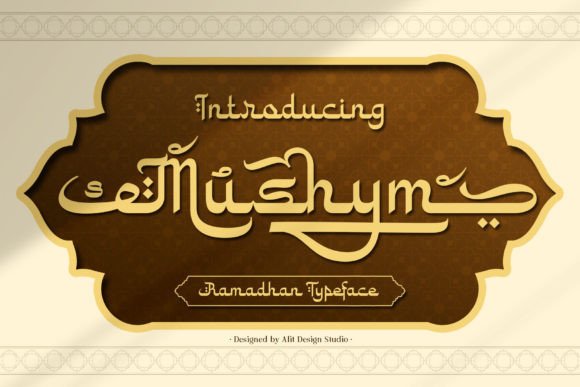
**Mushym Arabic Typeface Font: A Ramadan-Inspired Masterpiece for Timeless Elegance**
In a world saturated with digital noise, your designs need to stand out like a beacon of originality. Mushym Arabic Typeface Font is the key to unlocking this elusive goal. Its intricate and beautiful design, inspired by the spirit of Ramadan, will infuse your creations with a religious and Islamic touch that is sure to leave a lasting impression.
**Unleash the Power of Arabic Calligraphy**
With its elegant curves, sweeping flourishes, and precise attention to detail, Mushym captures the essence of Arabic calligraphy, one of the world's most revered art forms. This font is meticulously designed to evoke the rich cultural and spiritual heritage of the Islamic world, transforming your designs into masterpieces of visual storytelling.
**Enhance the Visual Appeal of Your Ramadan Promotions**
Mushym is the perfect font for creating stunning Ramadan promotions that resonate with your audience on a deeper level. Its religious and Islamic overtones will elevate your designs, adding a layer of authenticity and reverence that is sure to touch the hearts of those who see it.
**Effortless Versatility for Endless Design Possibilities**
Whether you're crafting invitations, posters, social media posts, or website designs, Mushym adapts seamlessly to a wide range of applications. Its PUA encoding ensures effortless access to all glyphs and swashes, empowering you with endless creative possibilities.
**A Font That Speaks to the Soul**
With Mushym, your designs will transcend mere aesthetics and become conduits of emotion. Its delicate strokes and harmonious letterforms will captivate your audience, drawing them into the depths of your message and leaving them with a lasting sense of awe and wonder.
**Elevate Your Digital Presence with Mushym**
In a world where attention spans are fleeting, Mushym grants you the power to create designs that demand attention. Its striking beauty and religious significance will elevate your digital presence, ensuring that your message cuts through the clutter and resonates with your audience in a profound way.